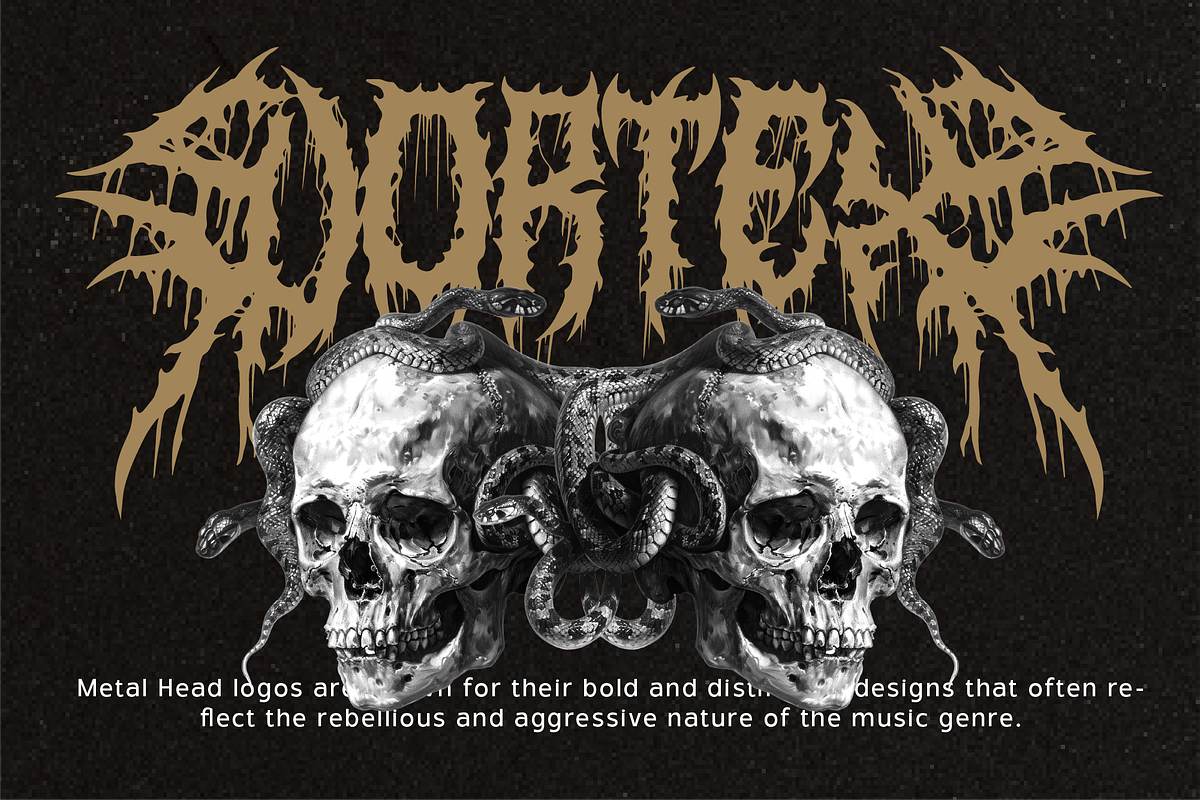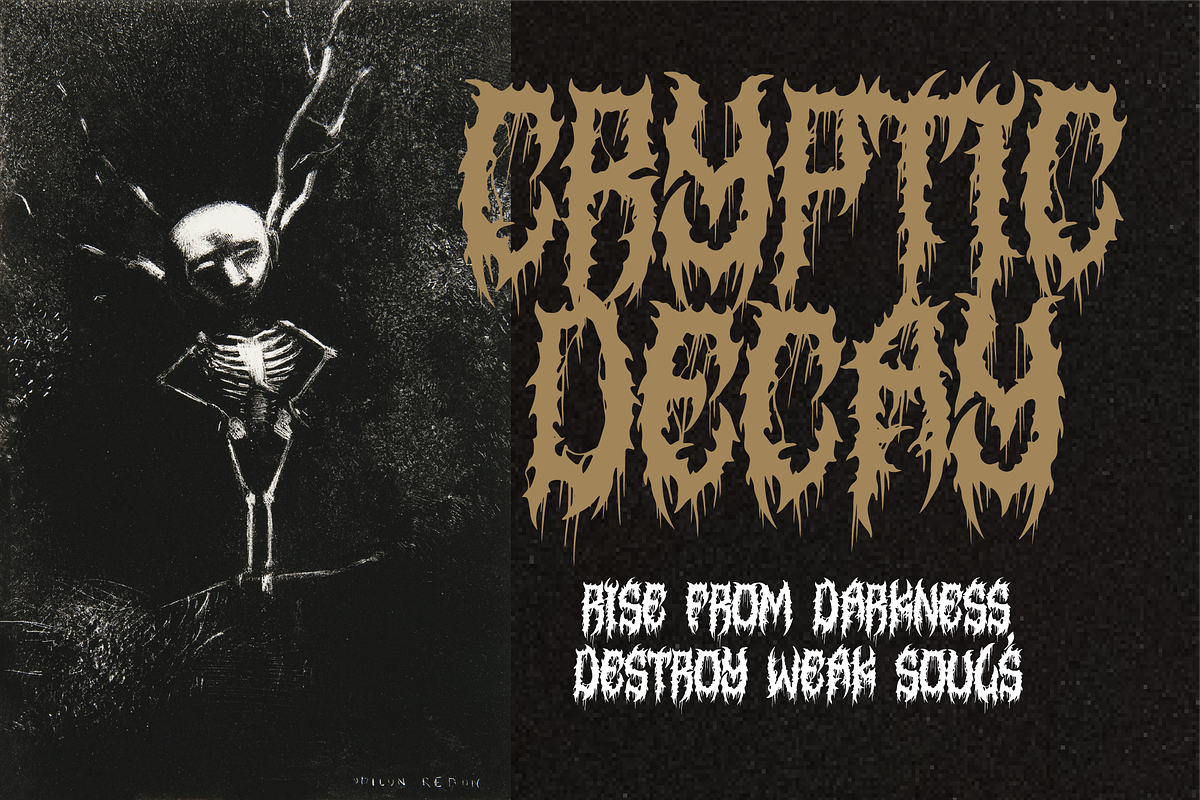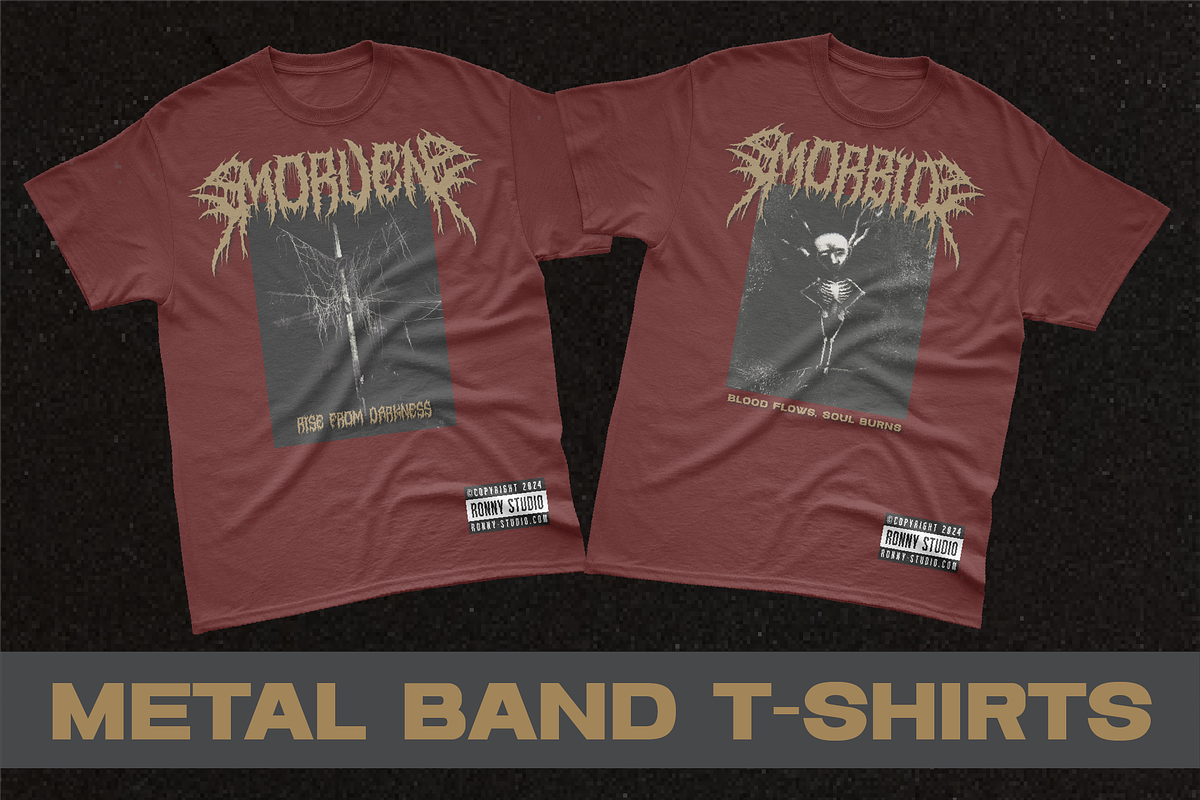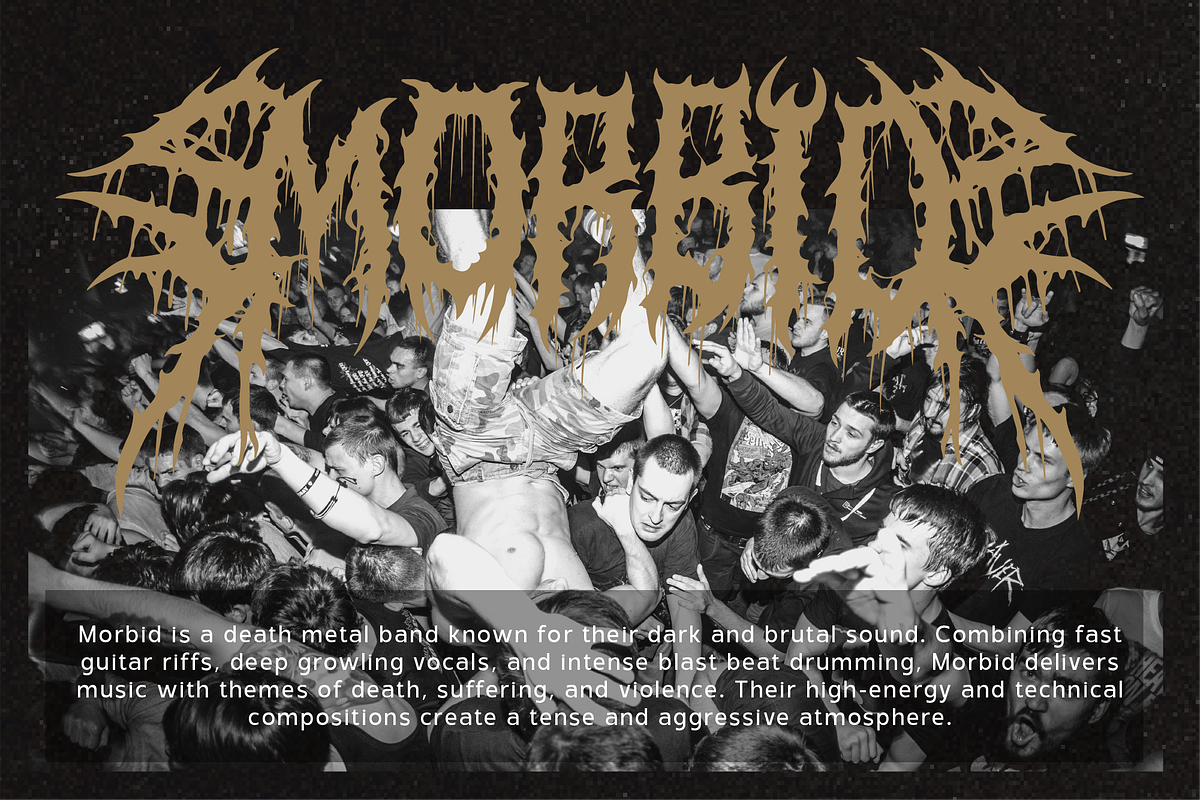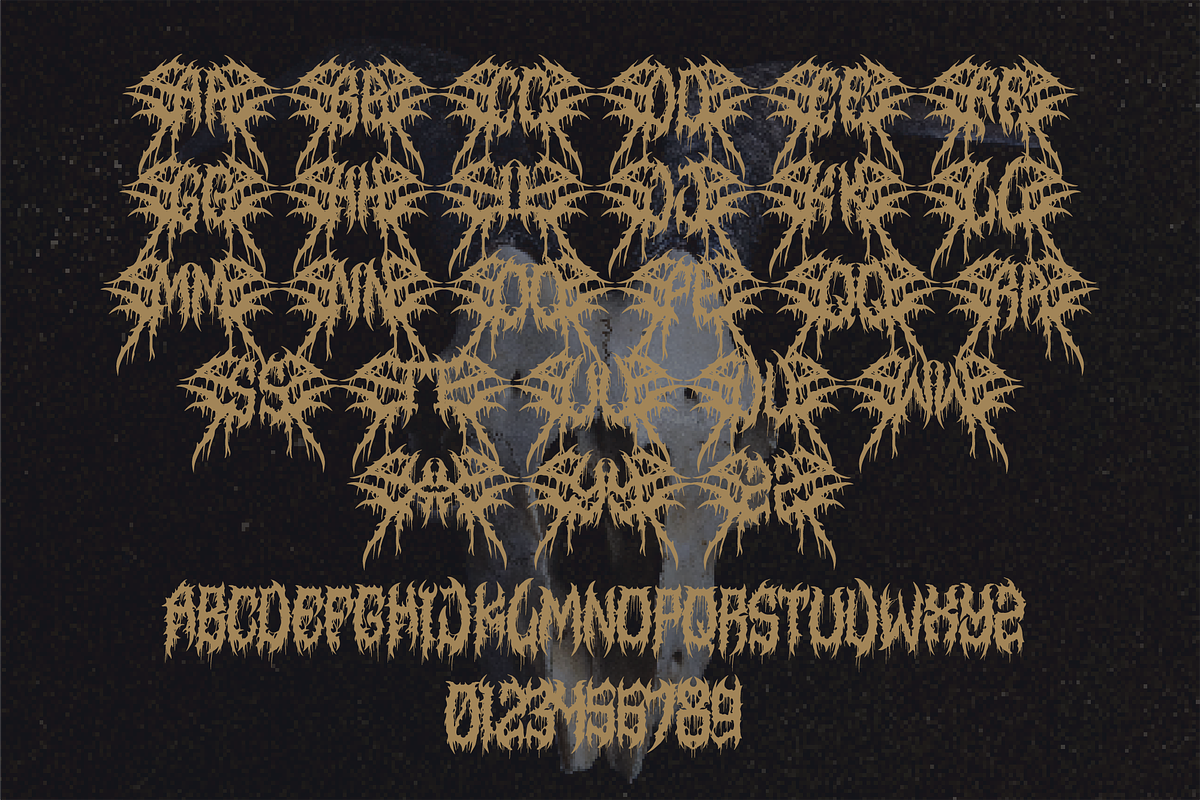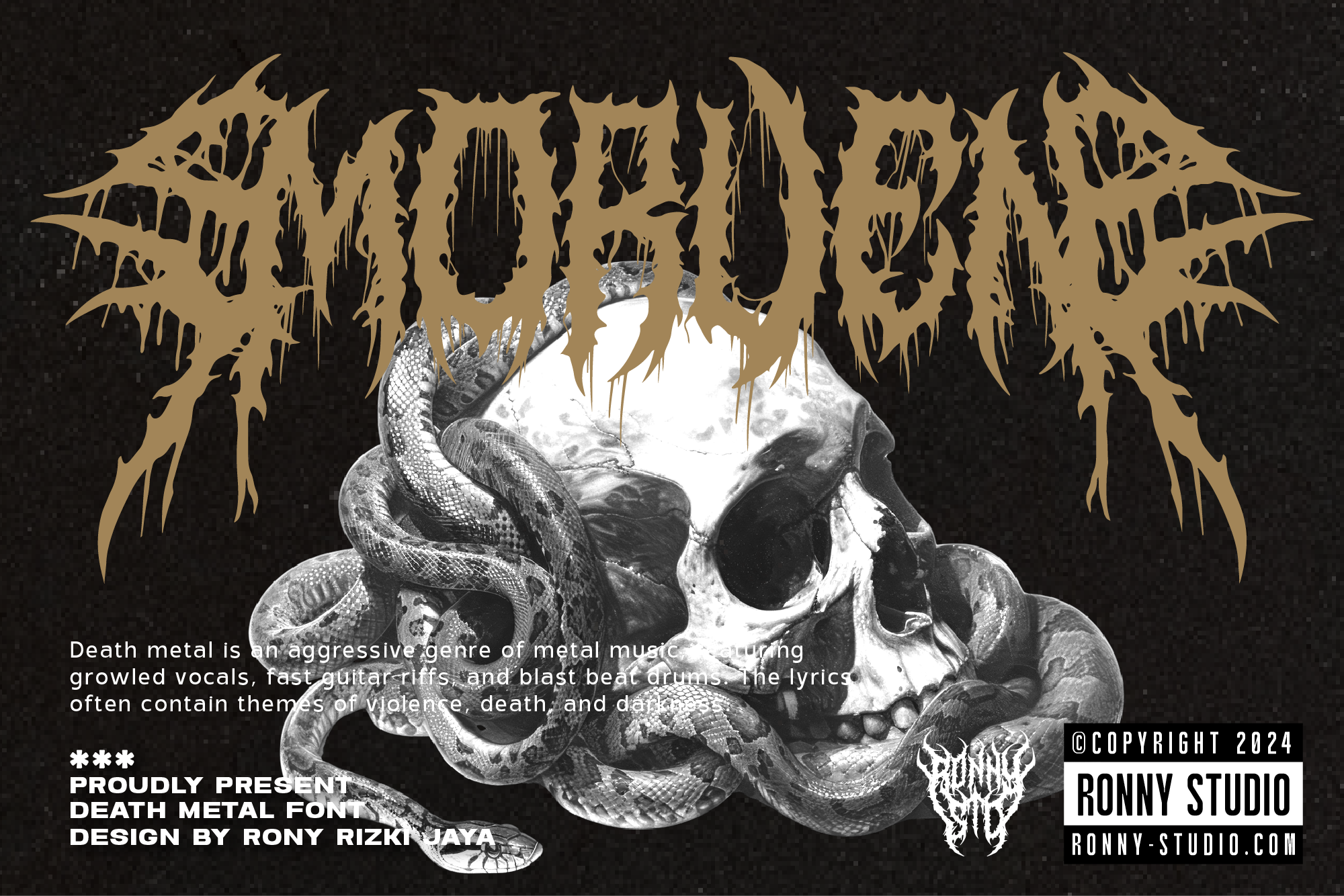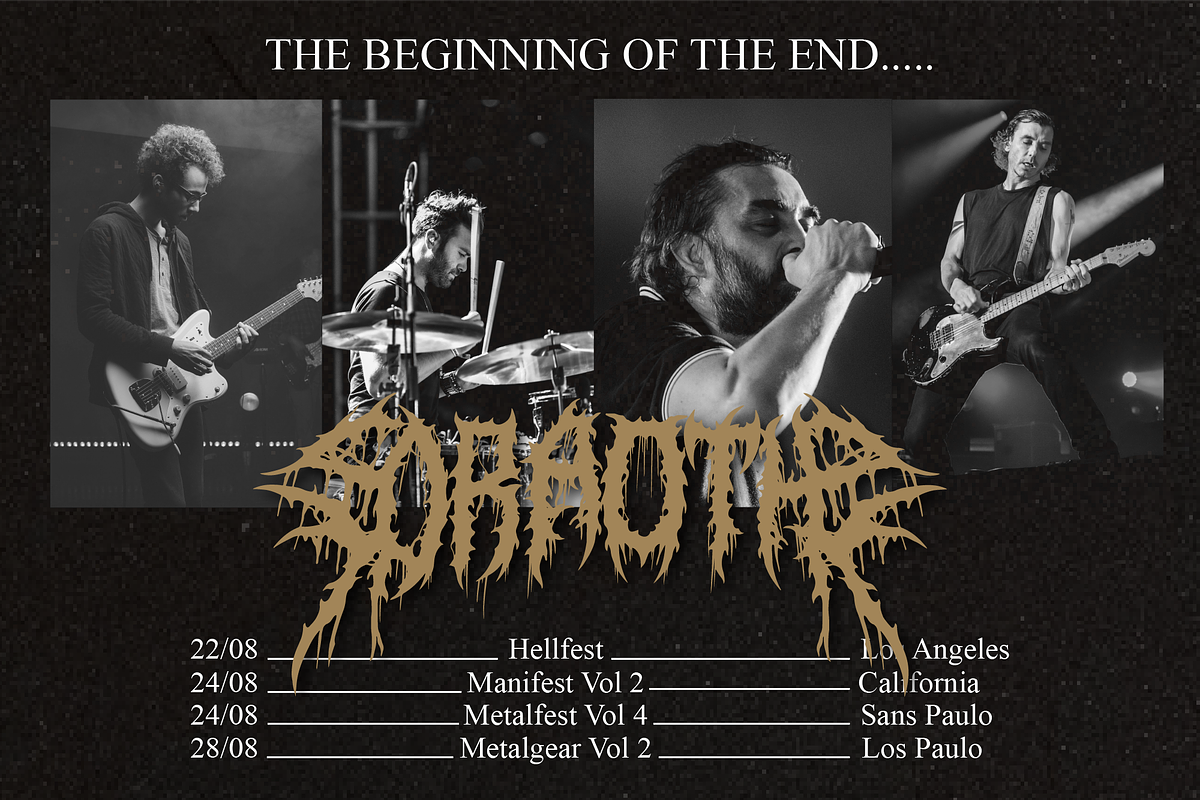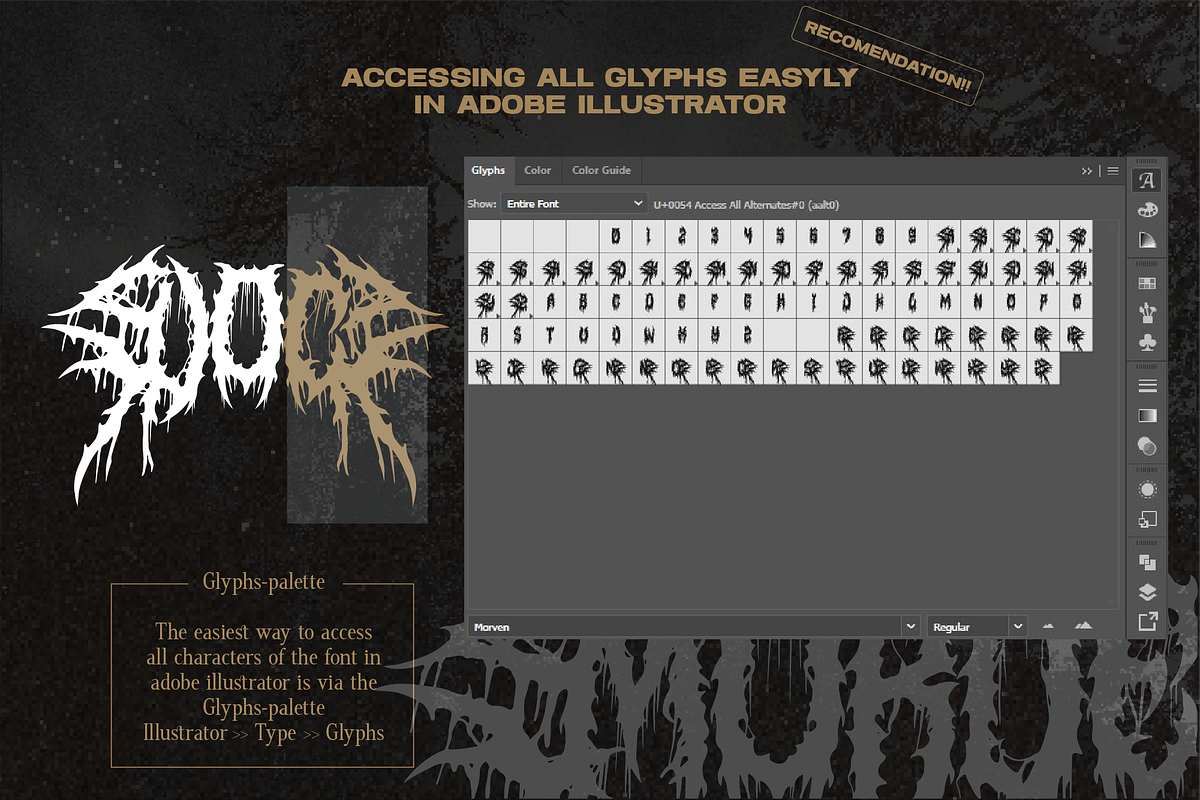
Morven Brutal Death Metal Font
⚡ Unleash pure aggression with Morven, a high-impact death metal font designed for extreme music branding. Inspired by black metal, thrash metal, and horror aesthetics, this font brings an intense and chaotic look, making it the perfect choice for:
🔥 Metal Band Logos & Album Covers
🔥 Dark-Themed Posters & Event Flyers
🔥 Tattoo Designs & Gothic Merch
🔥 YouTube Thumbnails & Social Media Graphics
💀 Features:
✔ Sharp, Brutal Lettering – Designed for maximum impact.
✔ Uppercase & Lowercase + Special Characters
✔ Multilingual Support – Covers multiple languages.